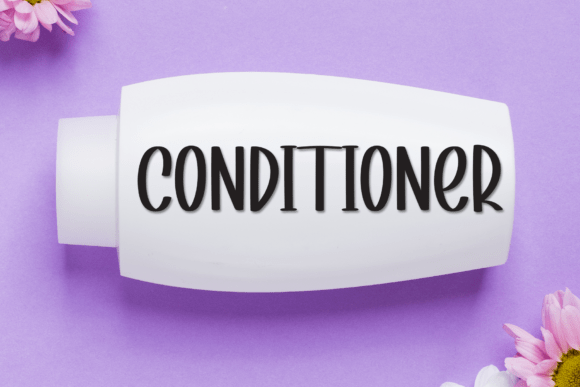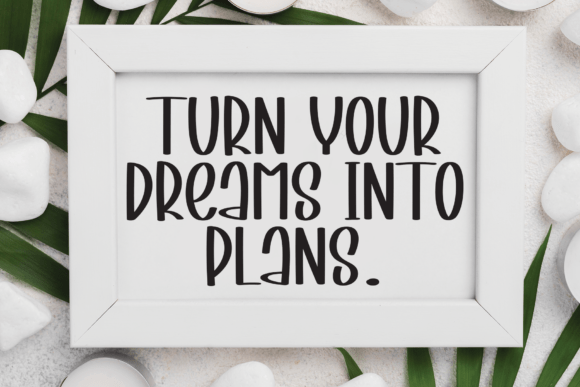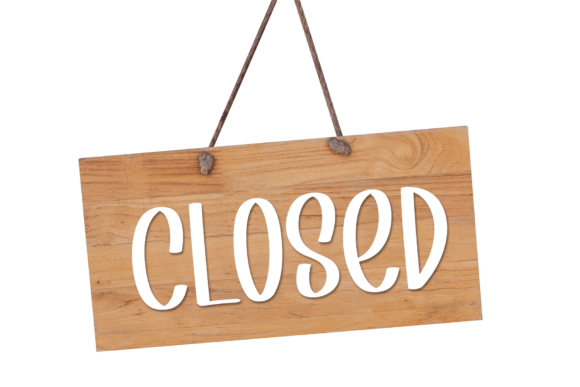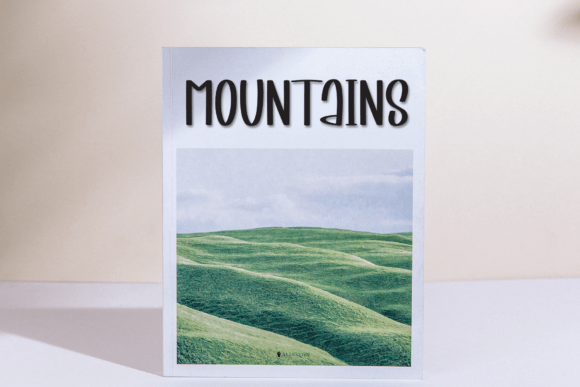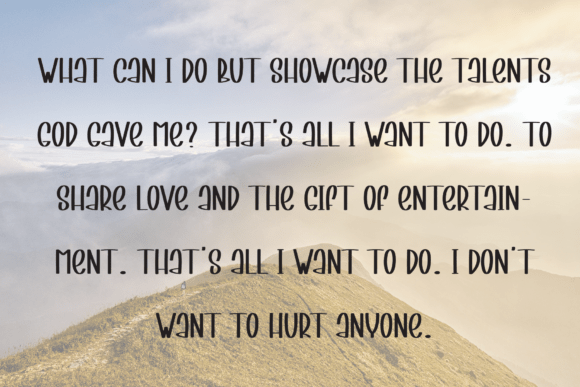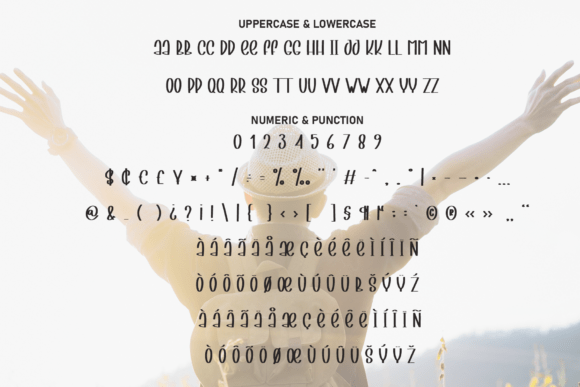
Introducing Happy Sunday Font: The Perfect Blend of Clarity and Relaxed Charm
Are you on the hunt for a font that embodies the perfect balance of modern sophistication and laid-back vibes? Look no further than Happy Sunday Font, a neat and casual display font designed to bring a touch of personality to your designs. With its clean lines, friendly letterforms, and balanced structure, Happy Sunday Font is the ideal choice for designers and crafters looking to create headlines, posters, packaging, and branding that feels both modern and approachable.
The Characteristics of Happy Sunday Font
So, what makes Happy Sunday Font stand out from the crowd? Here are just a few of its key characteristics:
- Clean Lines: Happy Sunday Font boasts clean, crisp lines that ensure clarity and readability, even at larger font sizes.
- Friendly Letterforms: The font’s letterforms are designed to be friendly and approachable, lending a warm and inviting feel to your designs.
- Balanced Structure: With a balanced structure that is neither too rigid nor too playful, Happy Sunday Font strikes the perfect balance between style and readability.
- Playful Energy: Despite its clean lines and balanced structure, Happy Sunday Font still manages to convey a playful energy that’s perfect for designs that need a little personality.
Happy Sunday Font is a versatile font that can be used in a wide range of design applications, including:
- Headlines: Use Happy Sunday Font to create bold, eye-catching headlines that grab attention and draw the reader in.
- Posters: Whether you’re creating a poster for a concert, festival, or sale, Happy Sunday Font is the perfect choice for adding a touch of personality and style.
- Packaging: Add a touch of modern sophistication to your packaging designs with Happy Sunday Font, which is perfect for labels, tags, and other packaging materials.
- Branding: Use Happy Sunday Font to create a consistent brand identity that feels both modern and approachable.
Why Choose Happy Sunday Font?
So, why should you choose Happy Sunday Font for your next design project? Here are just a few reasons:
- Unique Personality: Happy Sunday Font has a unique personality that sets it apart from more traditional fonts.
- Readability: Despite its playful energy, Happy Sunday Font remains highly readable, even at smaller font sizes.
- Versatility: Happy Sunday Font can be used in a wide range of design applications, from headlines and posters to packaging and branding.
- Modern yet Laid-Back: Happy Sunday Font strikes the perfect balance between modern sophistication and laid-back charm, making it perfect for designs that need to feel both stylish and approachable.
Tips for Using Happy Sunday Font
Here are a few tips for getting the most out of Happy Sunday Font:
- Experiment with Font Sizes: Happy Sunday Font looks great at a wide range of font sizes, so don’t be afraid to experiment to find the perfect size for your design.
- Pair with Other Fonts: Happy Sunday Font pairs well with a variety of other fonts, so try pairing it with a serif font for added contrast.
- Use for Headlines and Titles: Happy Sunday Font is perfect for headlines and titles, but don’t be afraid to use it for body copy too.
In conclusion, Happy Sunday Font is a versatile and stylish font that’s perfect for designers and crafters looking to add a touch of personality to their designs. With its clean lines, friendly letterforms, and balanced structure, Happy Sunday Font is the ideal choice for a wide range of design applications, from headlines and posters to packaging and branding. So why wait? Give Happy Sunday Font a try today and see the difference it can make in your designs!